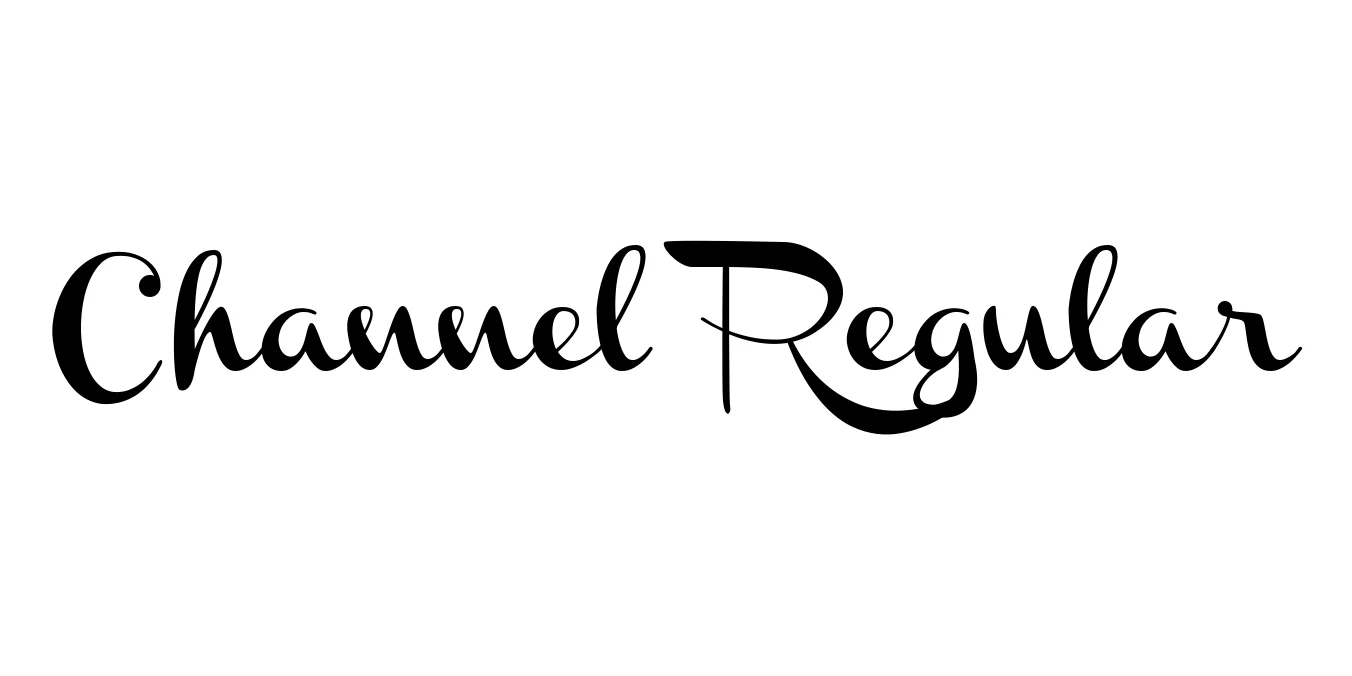
Channel Regular
Designed by Måns Grebäck
Channel Regular is a sophisticated and energetic brush script font created by the prolific Swedish type designer Måns Grebäck. The typeface is characterized by its fluid, rhythmic strokes and a slight slant that conveys a sense of motion and speed, making it a popular choice for sports-related branding and dynamic logotypes.
First released in the early 2010s, Channel quickly became a staple in the design world for its ability to balance handwritten charm with professional legibility. Its wide range of swashes and alternates allows designers to create customized, high-end looks for headlines, apparel design, and promotional materials while maintaining a consistent and polished aesthetic.
Channel Regular Best Uses
Perfect for creating energetic and memorable logos.
Ideal for t-shirts and sportswear designs.
Great for high-impact titles and quote graphics.
Adds a personal yet professional touch to promotional headers.